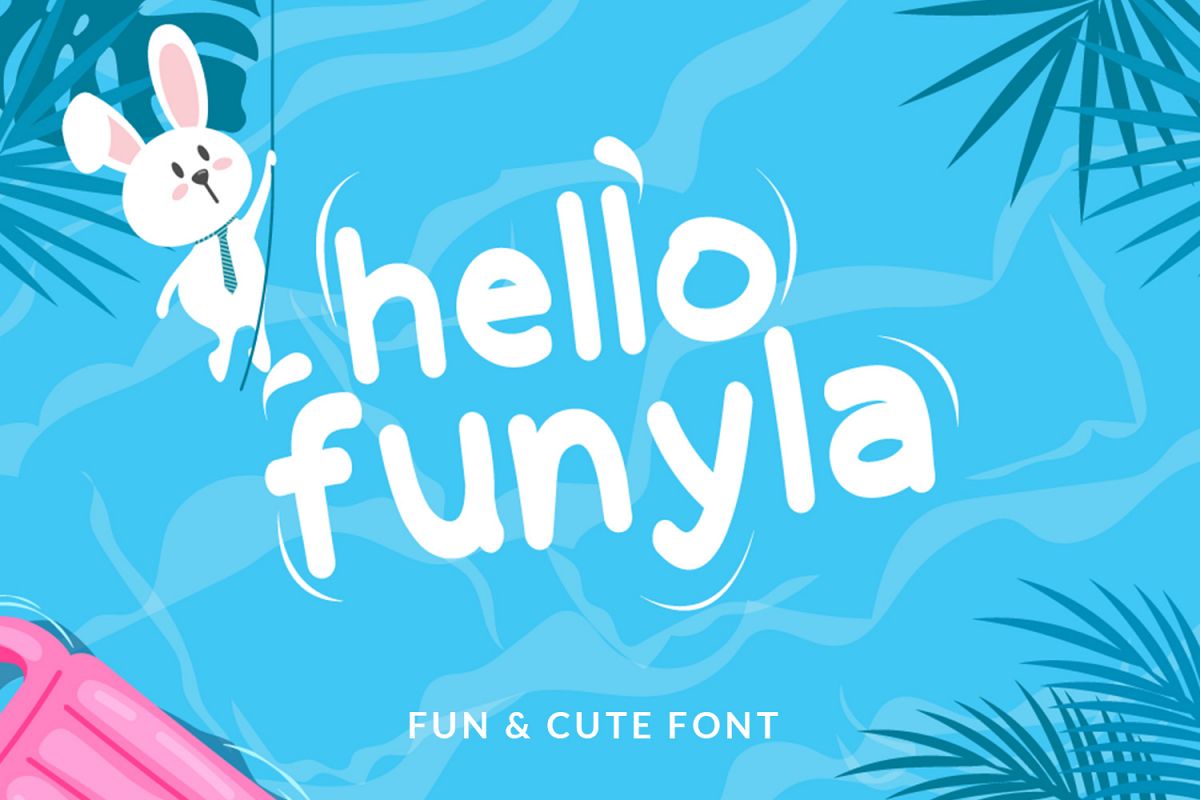
HelloFunyla - display font created with natural hand scratches that carry the theme fun and cute
HelloFunyla will be perfect for posters, t-shirts, book covers, packaging, sticker, quots and all designs that require a soft, cute and happiness element.